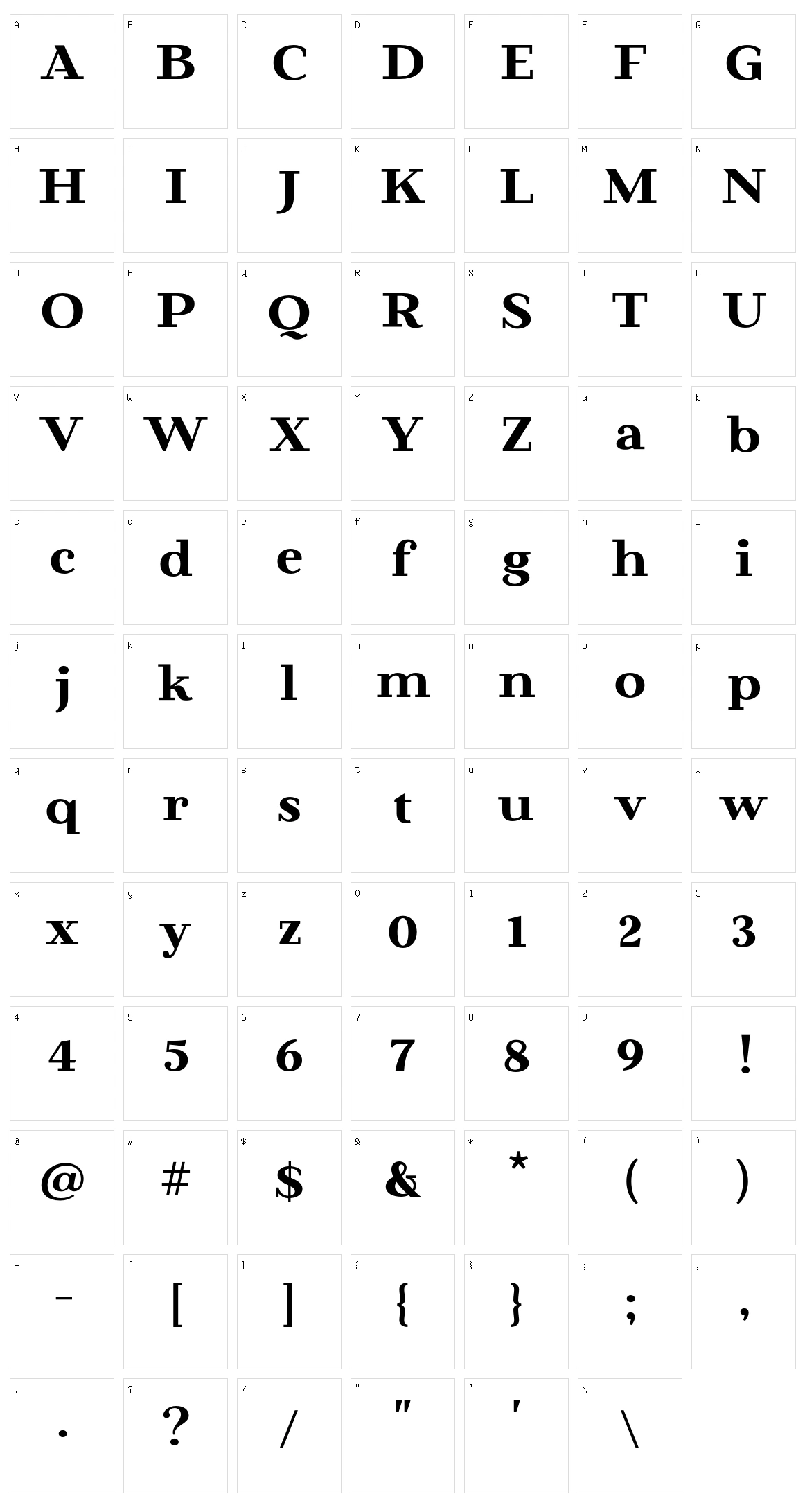
This is the demo version of the font called ÒBEAUMARISÓ serif typeface. Named after a nice bay area in Australia which I want to visit one day.
This demo version contains Characters a-z A-Z numbers 1-9 and Russian alphabet lowercase and uppercase letters.
(Full version has stylistic alternates, discretional ligatures, standard ligatures, small caps, fractions etc.)